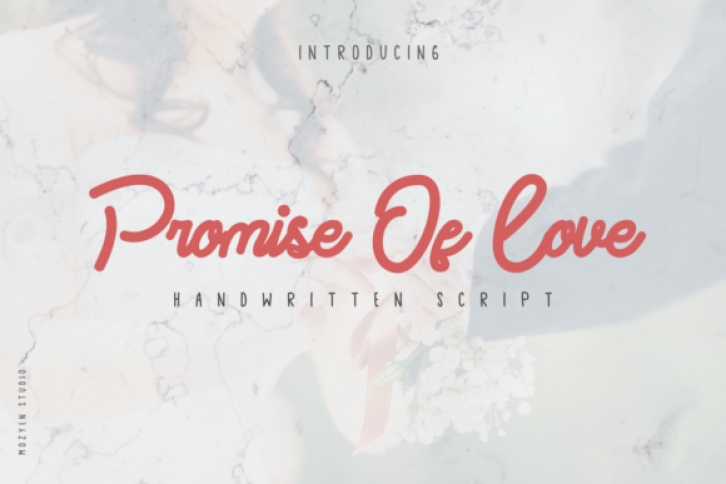
Promise of Love is a beautiful and brushed handwritten font. Dainty and joyful, this font will be ideal for writing wedding invitations, cards or any other design that may need a romantic, personalized touch!